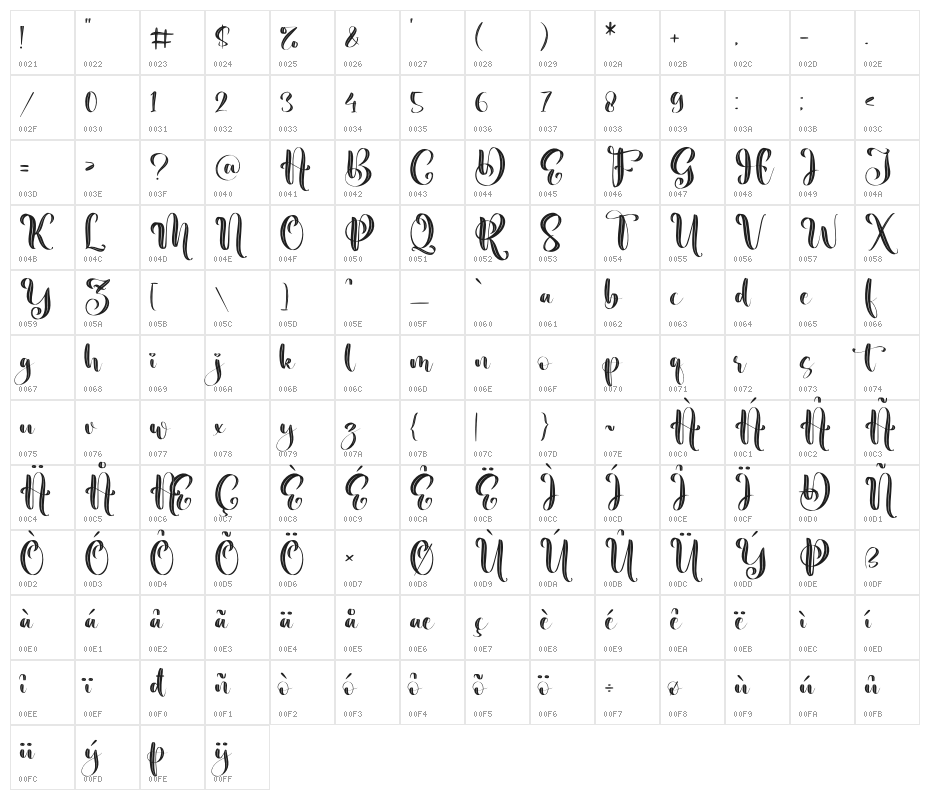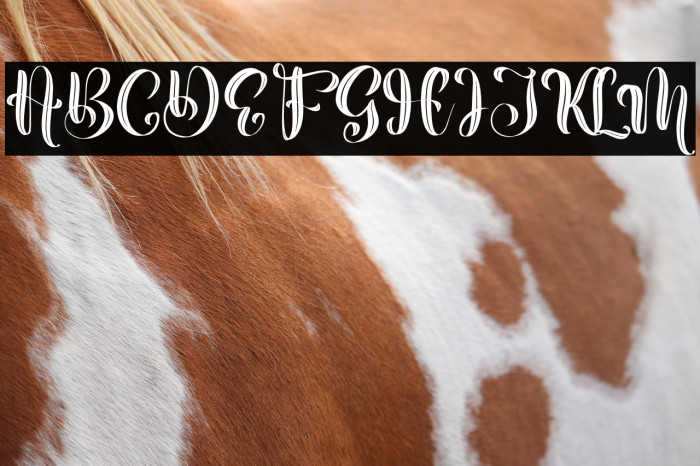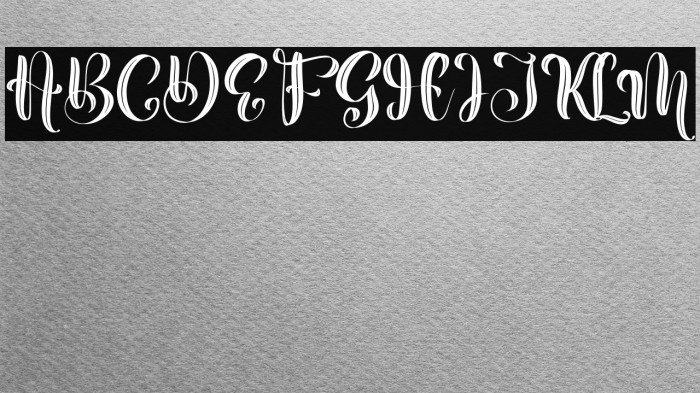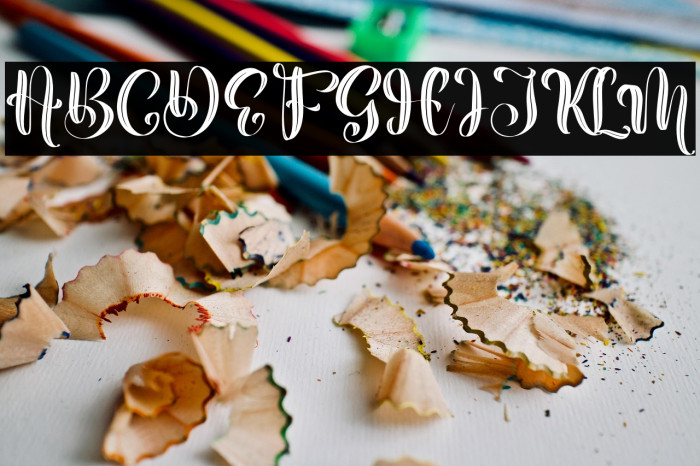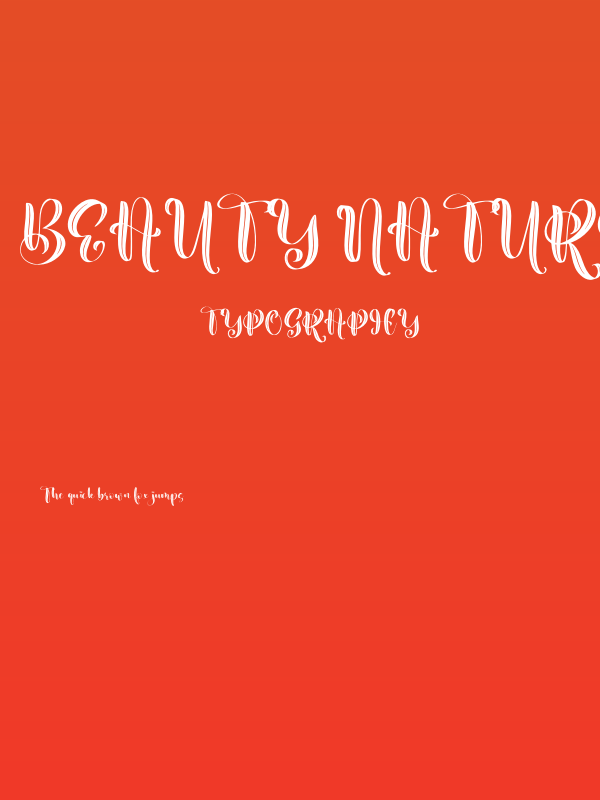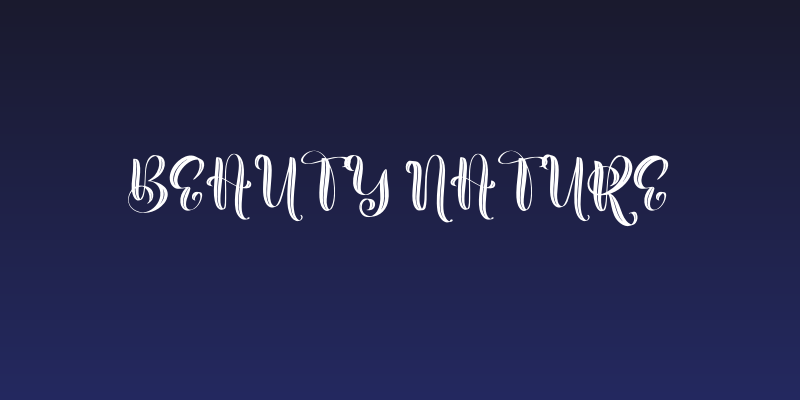
Beauty Nature Font
Beauty Nature Description
This font features an elegant and flowing script style, characterized by its intricate swirls and loops. The uppercase letters are bold and ornate, with a distinct flair that adds a touch of sophistication. The lowercase letters maintain a consistent flow, complementing the uppercase with their graceful curves. Numbers and special characters are designed with the same attention to detail, ensuring a cohesive look across all elements. The font's high contrast between thick and thin strokes enhances its decorative appeal, making it suitable for projects that require a touch of elegance and style.
| Proposed Projects | Ideal for wedding invitations, luxury branding, greeting cards, and elegant signage. |